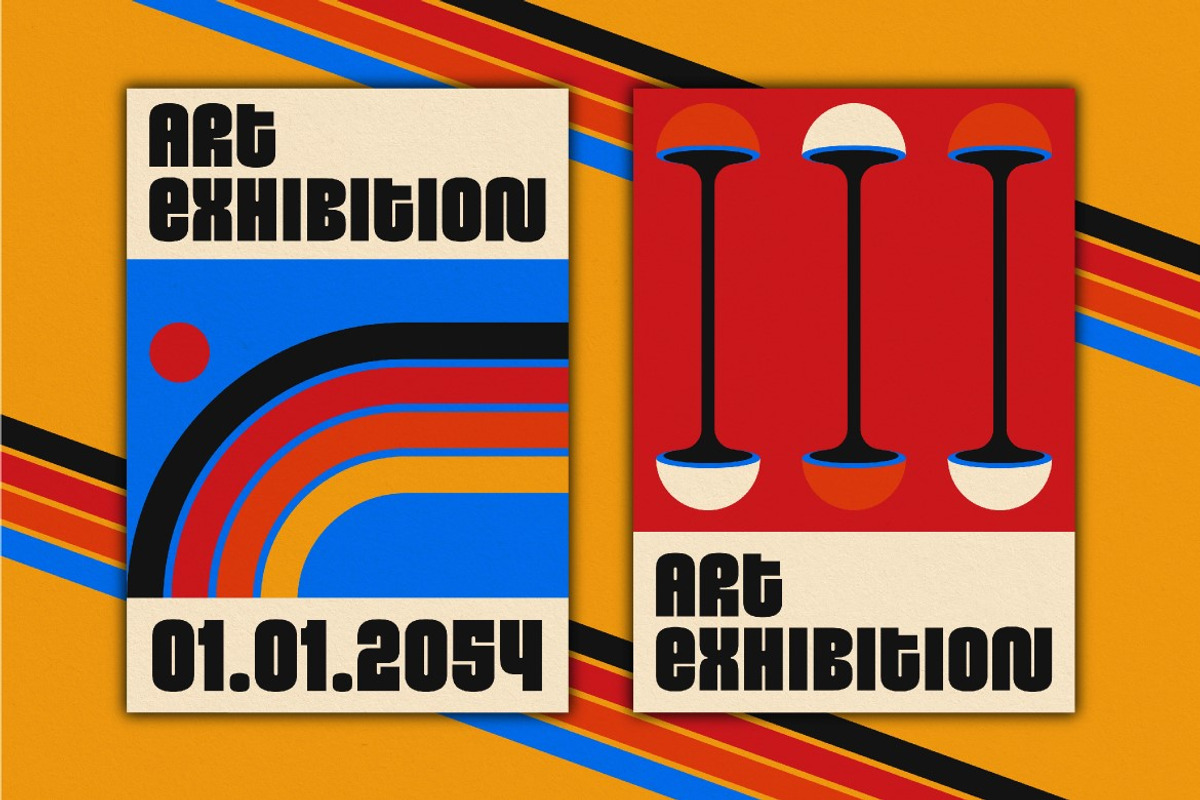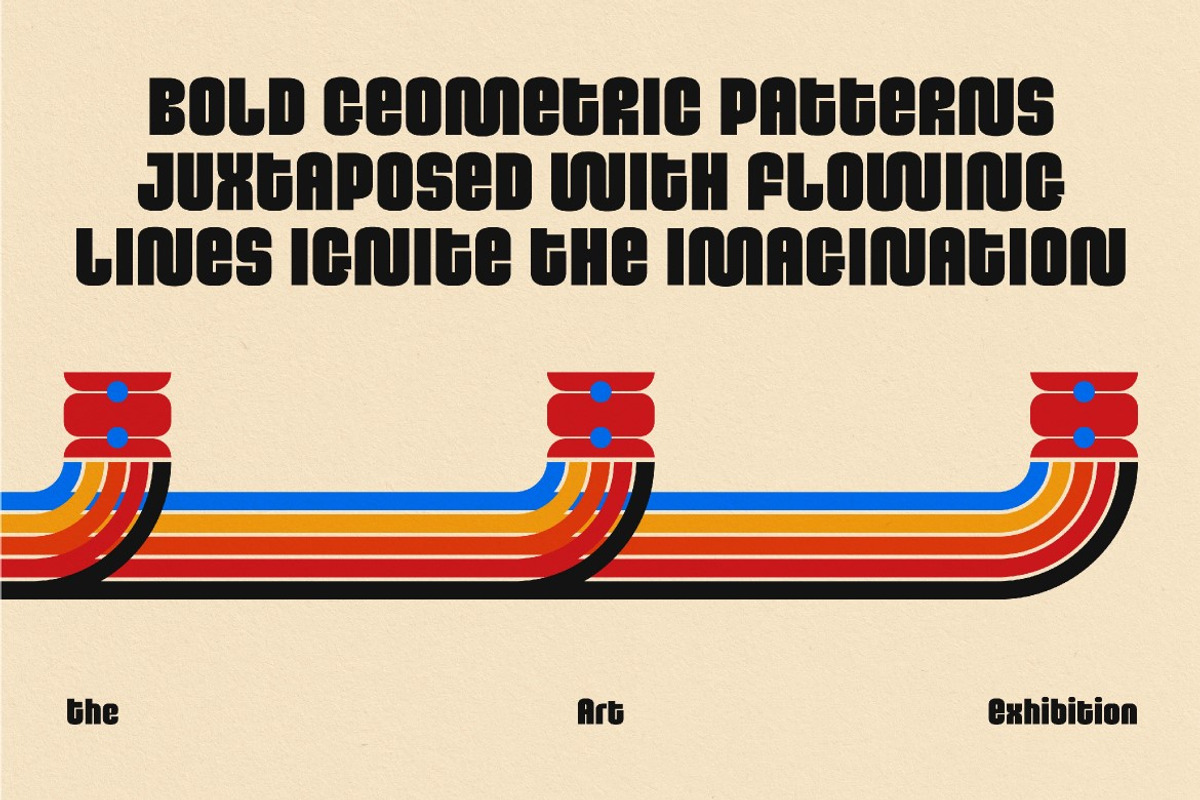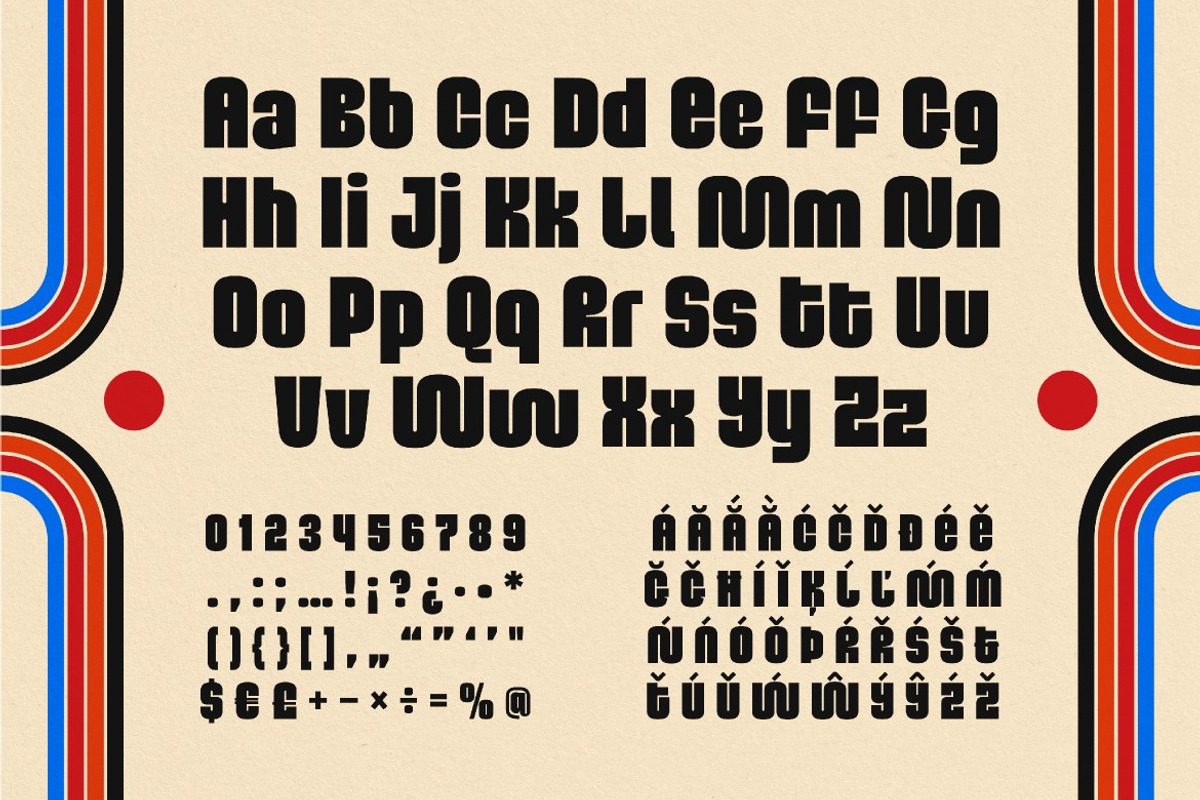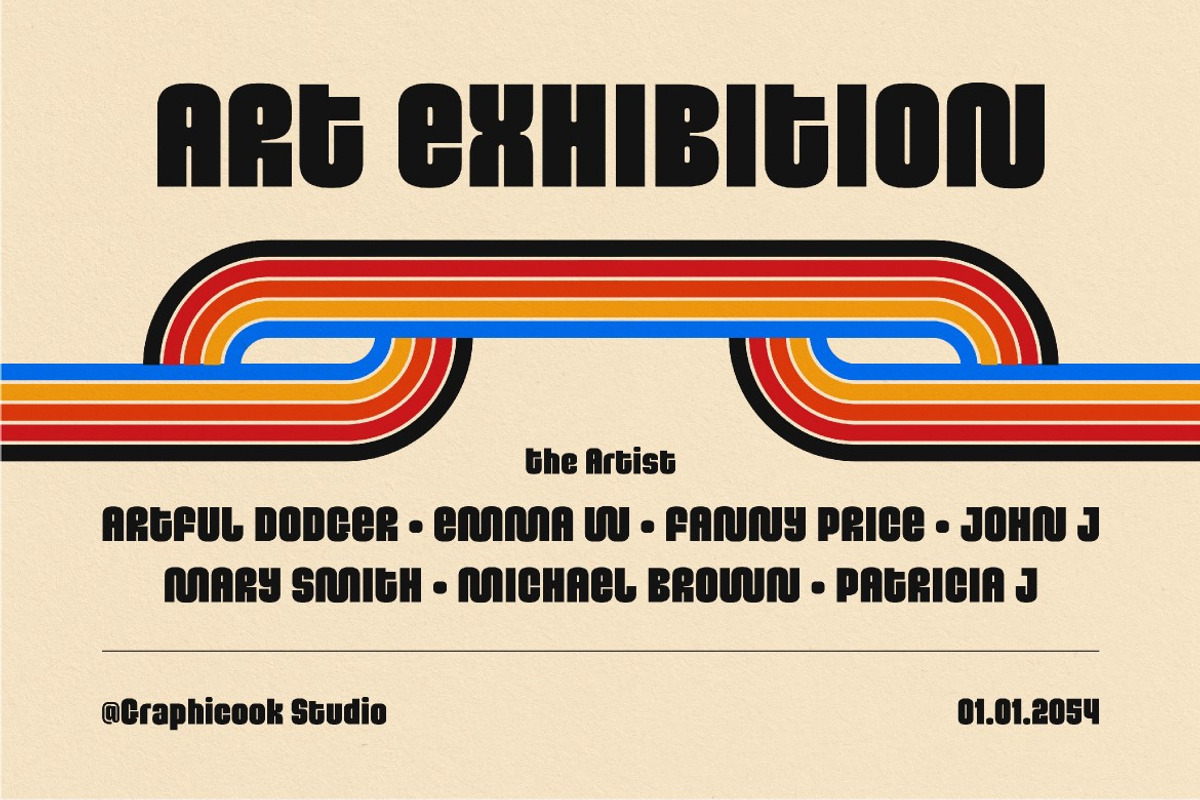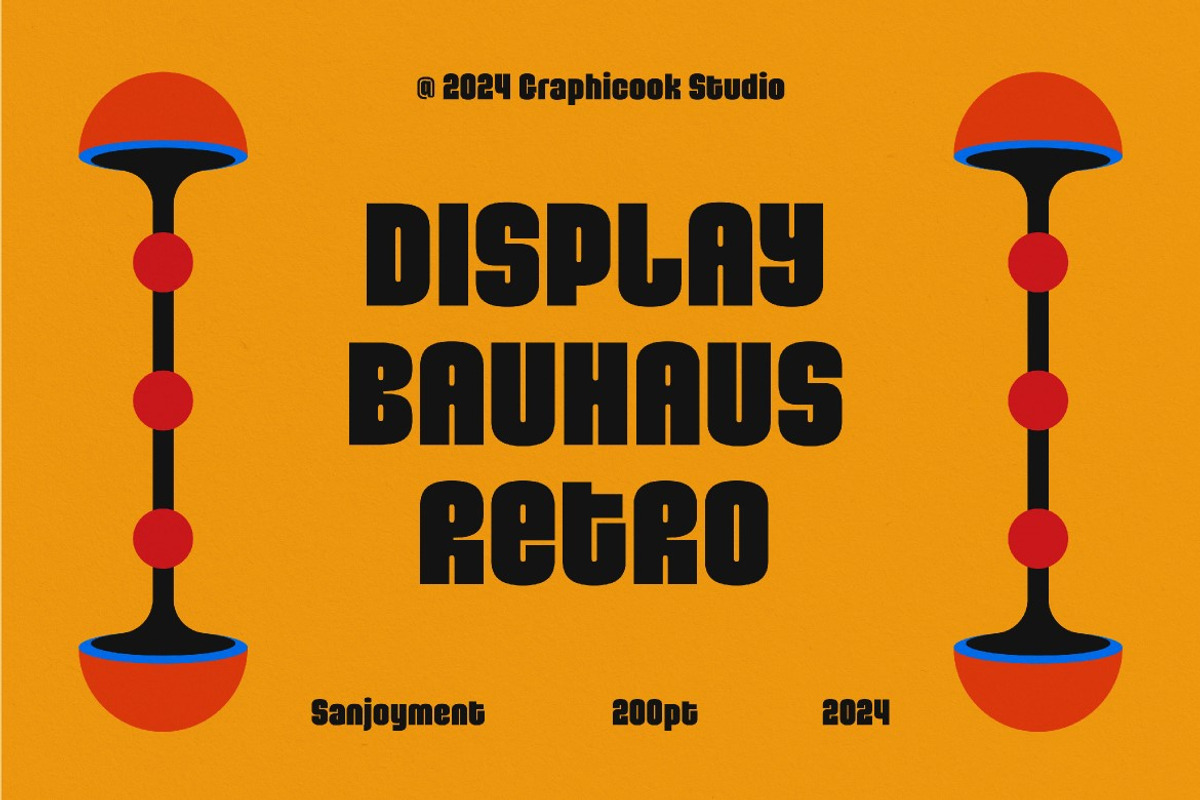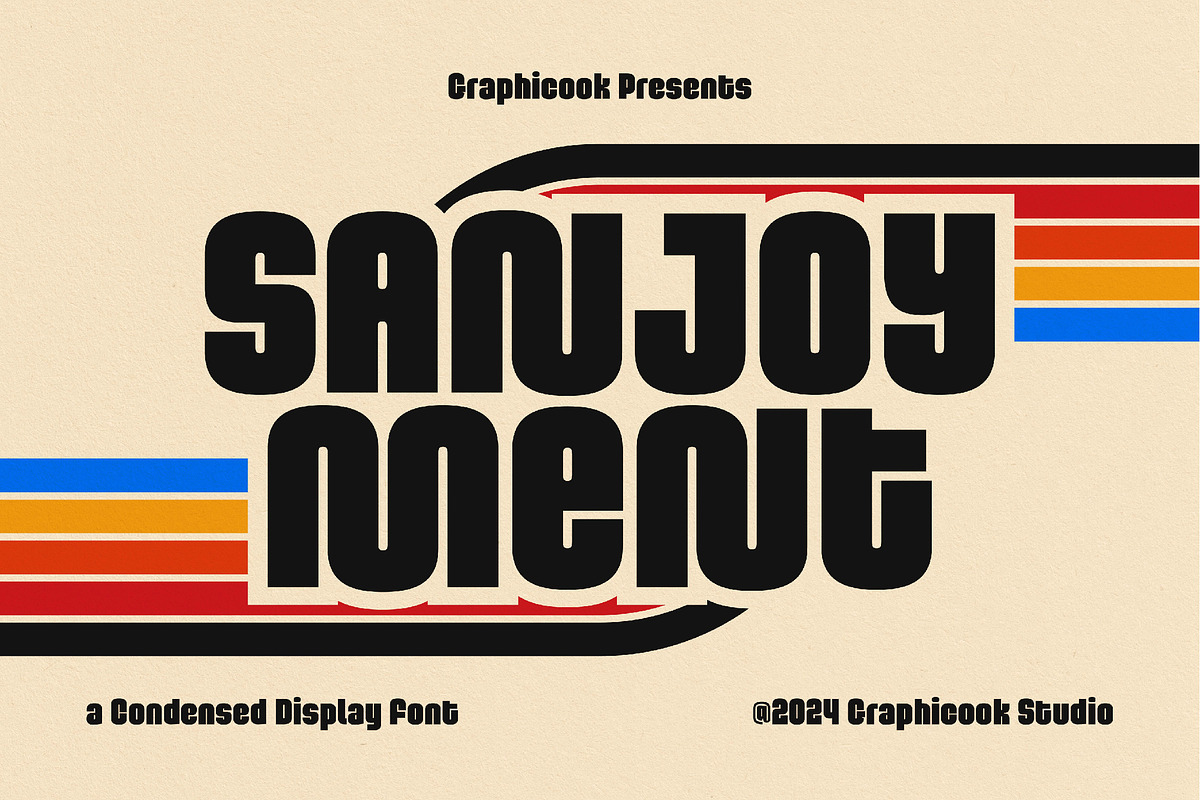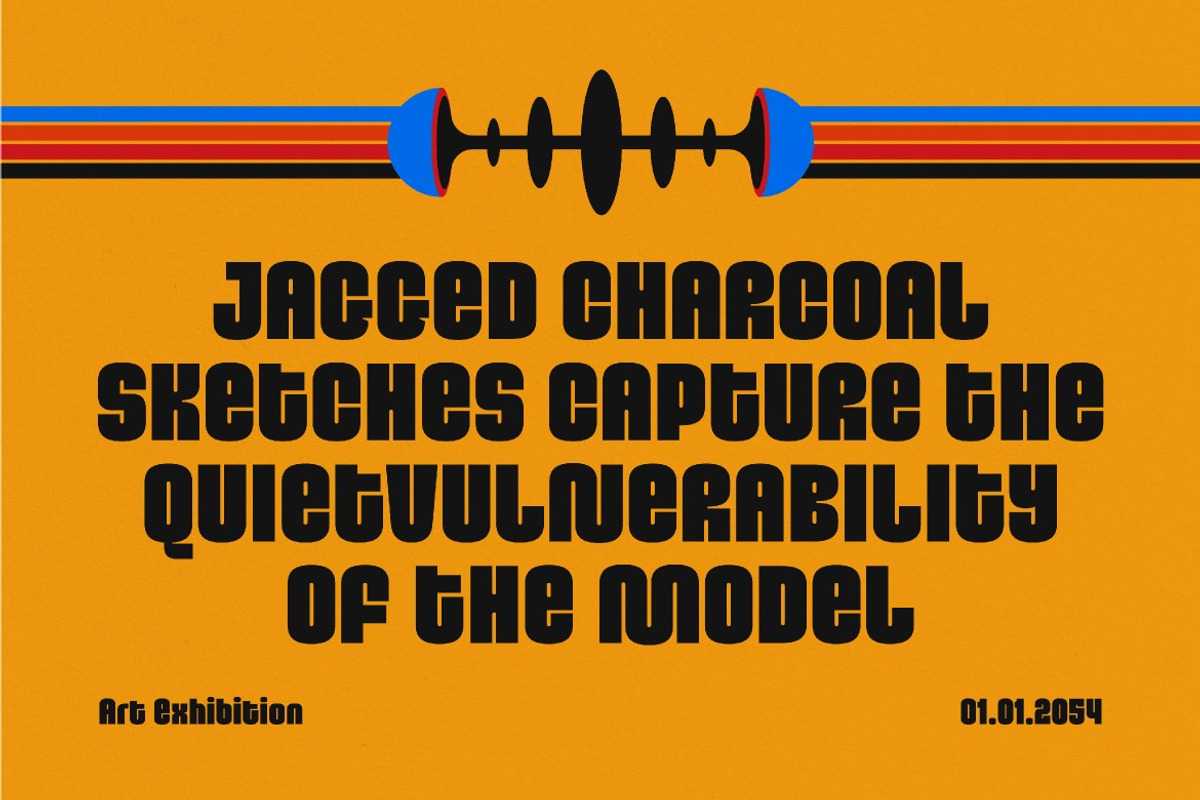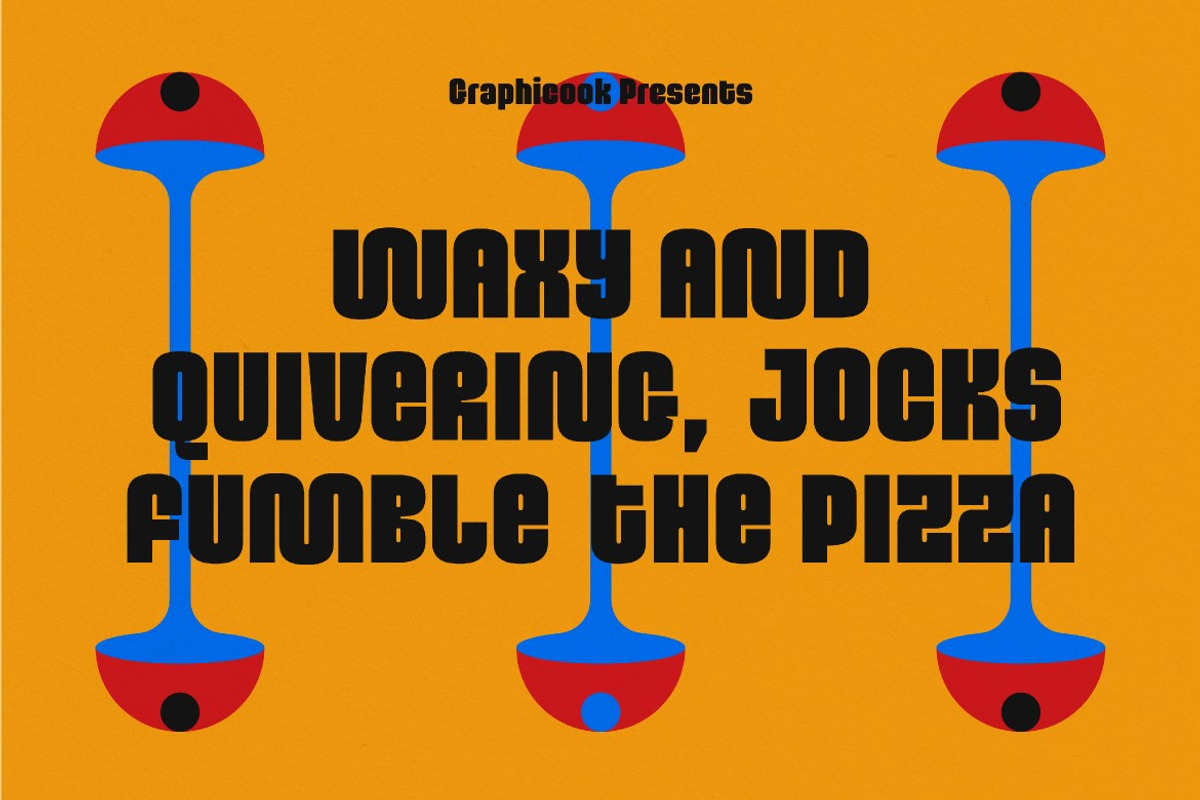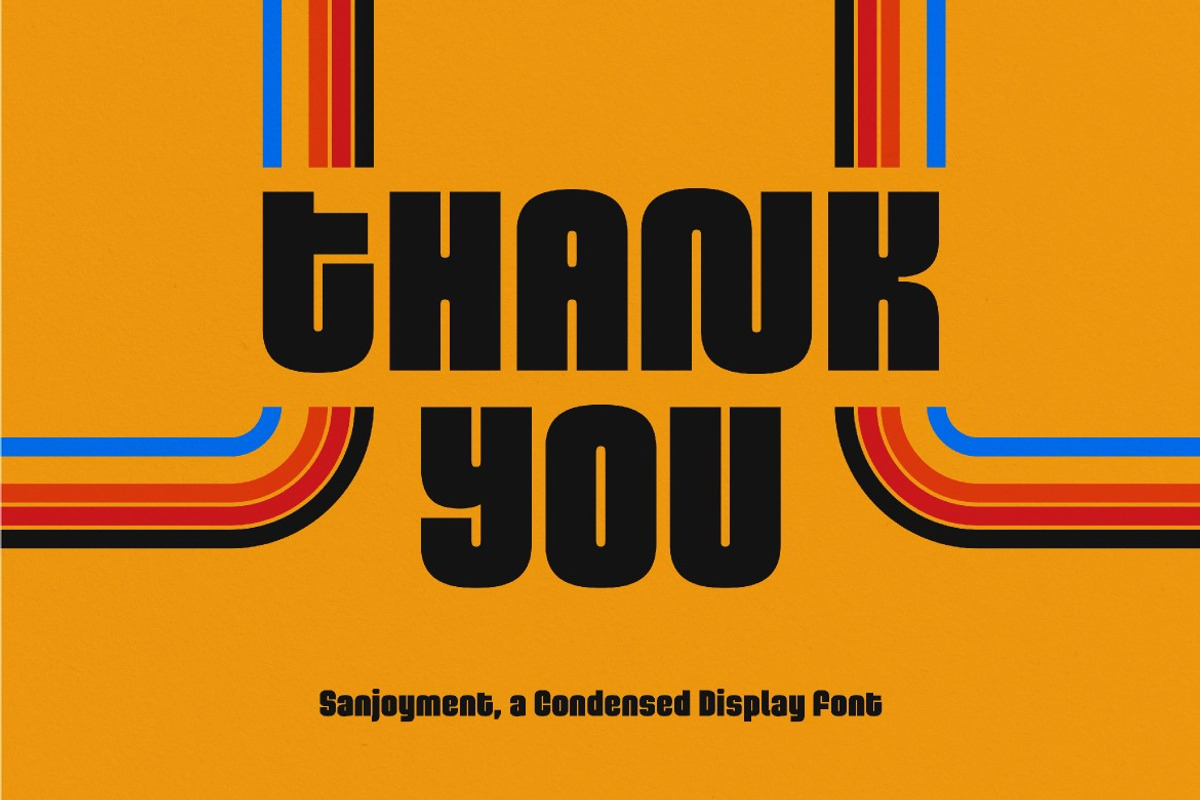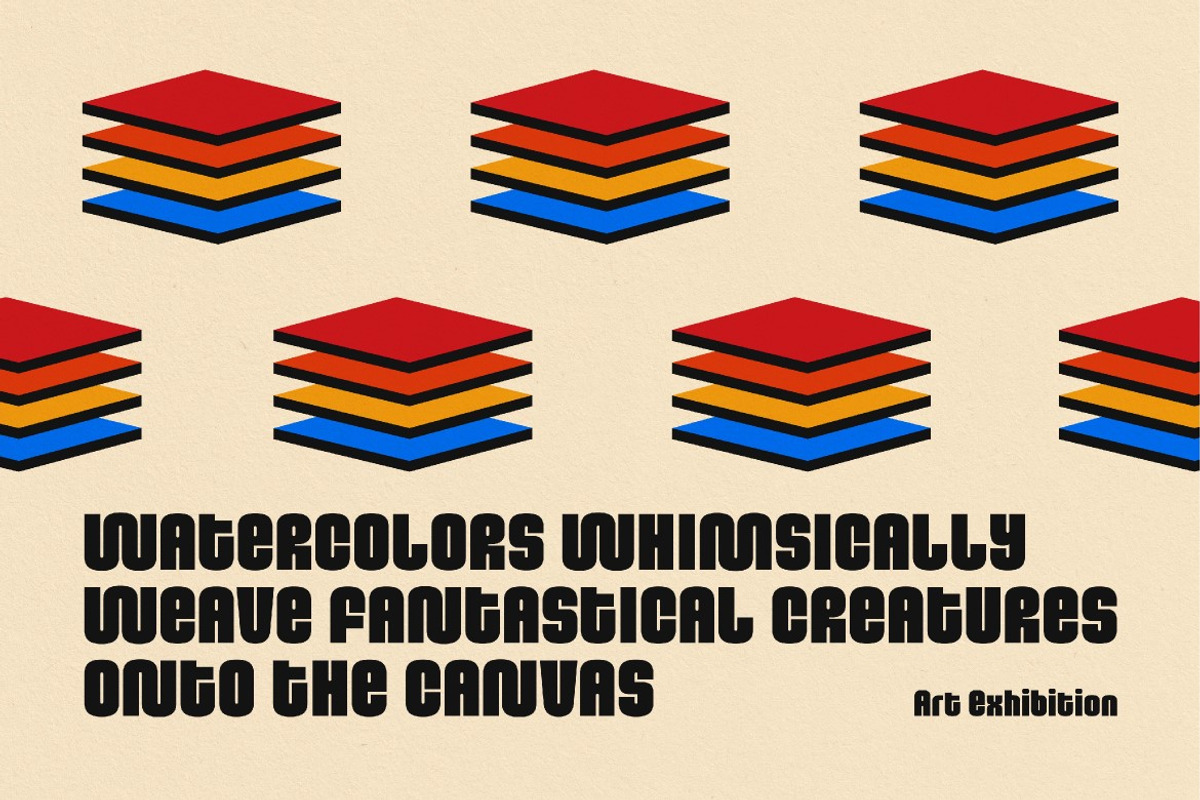
Sanjoyment
Sanjoyment Inspired by Bauhaus design, this font features geometric shapes and symmetrical lines. Its retro style makes it perfect for posters, websites, and editorial work.
Sanjoyment is perfect for headlines, logotypes, magazines, packaging, quotes, movies, games, cover albums, book covers, and flyers, it's a perfect solution for creating eye-catching designs that stand out in any context.